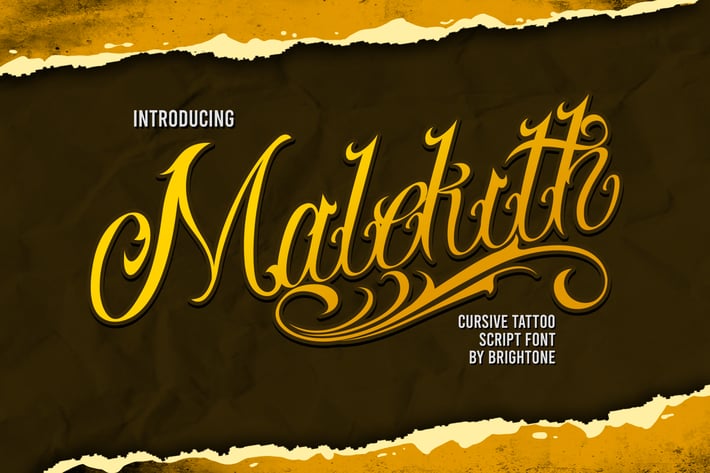
Malekith - Tattoo font
MALEKITH is script tattoo style font includes uppercase letters, numerals, a large range of punctuation and accented. Professional script font with tattoo style for your logo lettering, shirt design, logo tattoo studio, tattoo design, branding, etc